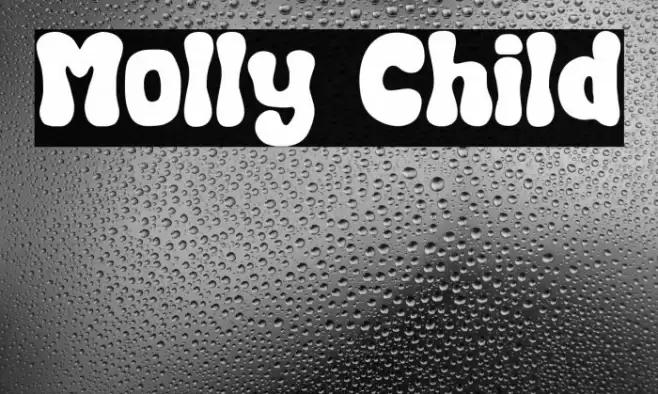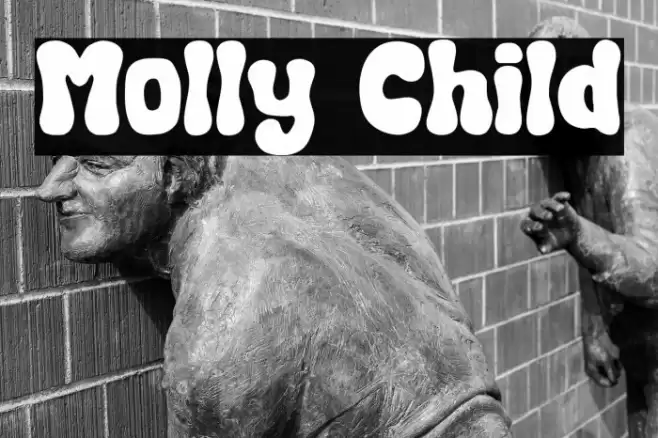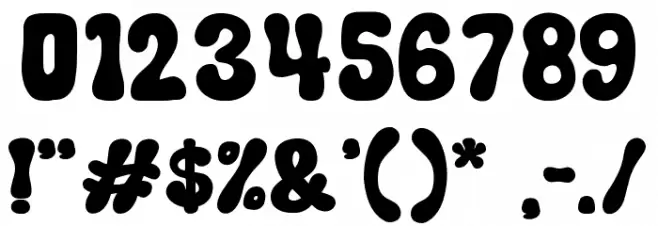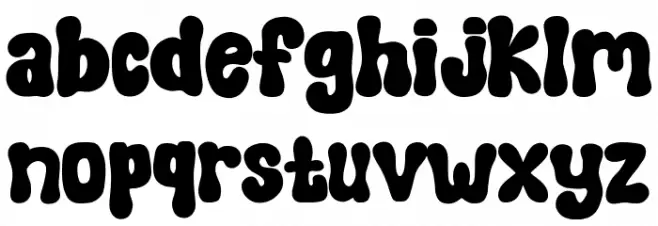
Molly Child Font
Molly Child Description
This playful and bold font features thick, rounded characters with a whimsical and childlike appearance. The letters are uniformly dense, creating a sense of fun and creativity. The font's bubbly nature makes it stand out, with each character maintaining a consistent weight and width. The numbers and special characters follow the same playful design, ensuring a cohesive look across all elements. Its unique style is perfect for projects that aim to capture attention and convey a sense of joy and imagination.
A playful, bold font with thick, rounded characters and a whimsical style from Uncategorized fonts.
- Font: Molly Child
- Proposed Projects: Ideal for children's books, playful branding, party invitations, and creative posters.
- Overall Style: Playful